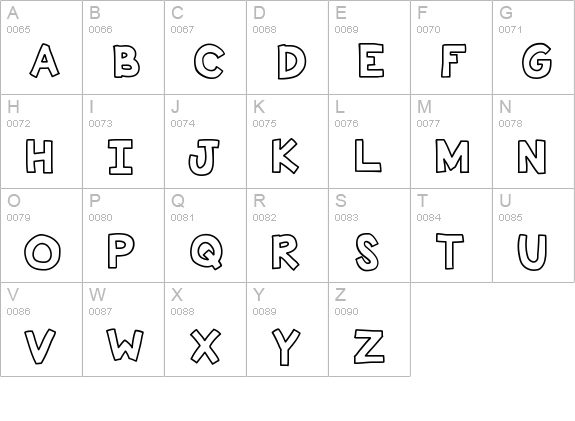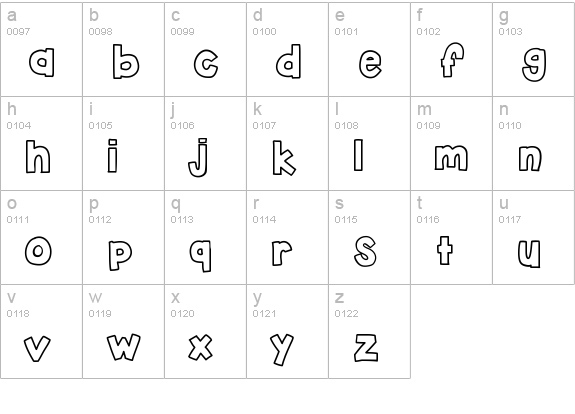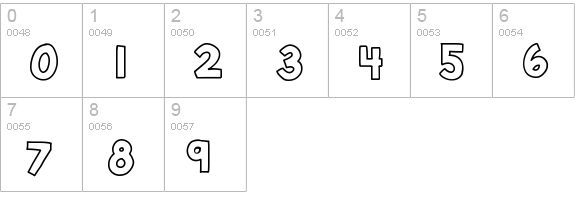
KBSticktoIt Font Details
Introducing KBSticktoIt, a bold and captivating font that exudes confidence and determination. With its clean lines and sturdy appearance, this font is perfect for any project that requires a strong and impactful message. Whether you're designing a motivational poster, creating a bold logo, or crafting eye-catching headlines, KBSticktoIt will make sure your message sticks! What's even better is that KBSticktoIt is available for free download at FontsMarket.com. Yes, you read that right - this remarkable font can be yours without spending a dime! FontsMarket.com, the trusted source for high-quality fonts, offers this incredible font as a gift to all designers and creatives who are passionate about making their work stand out. But don't let its price tag fool you - KBSticktoIt is not just any ordinary free font. Its attention to detail, impeccable craftsmanship, and the ability to convey a sense of determination and perseverance are what sets it apart from the rest. This font is meticulously designed to ensure that every letter, every curve, and every line is perfectly balanced, resulting in a visually stunning and impactful typeface. KBSticktoIt is versatile and adaptable, making it suitable for a wide range of design projects. Its bold and commanding presence makes it the ideal choice for branding, advertising, product packaging, and more. Whether you want to make a bold statement or simply add a touch of elegance to your designs, this font will effortlessly elevate your work to new heights. So why wait? Download KBSticktoIt for free now at FontsMarket.com and unleash the power of this exceptional font in your next project. Let your creativity soar as you make a lasting impression with this captivating and inspiring typeface. Remember, greatness starts with a single step, and with KBSticktoIt, you'll have the perfect font to help you stick to your goals and achieve success.